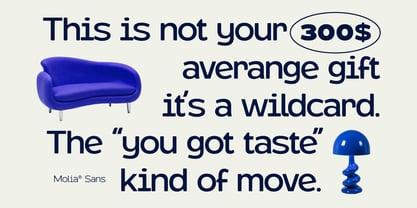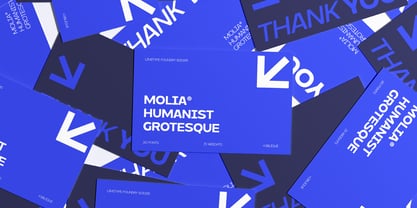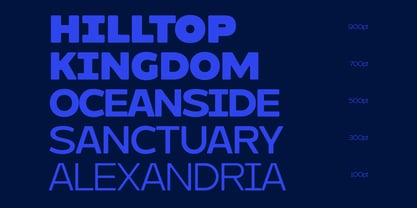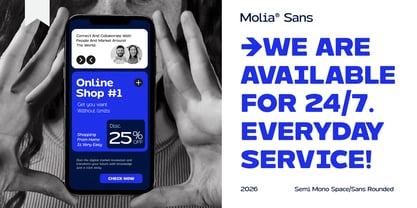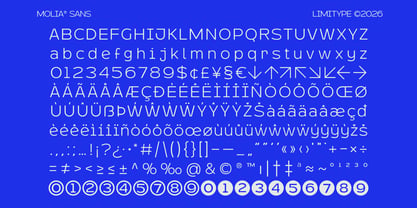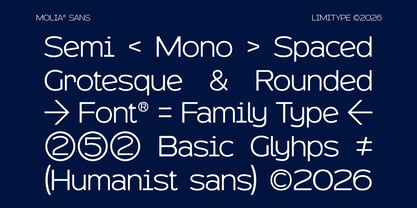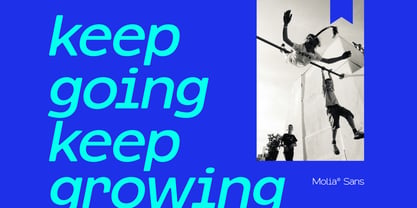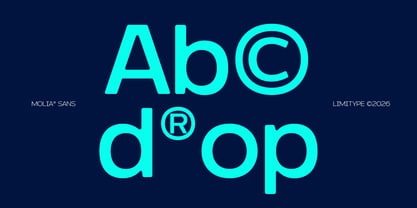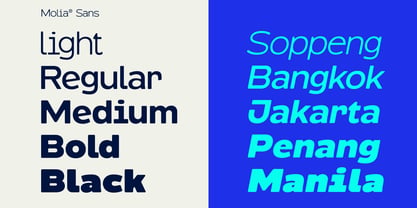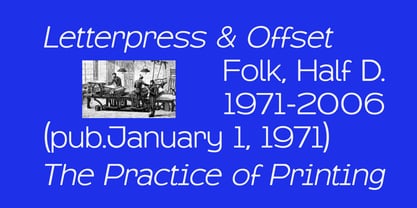
Molia Oblique
The Molia Oblique Font Family was designed by Muhammad Muammar, Furqan Sudirman and published by limitype. Molia Oblique contains 10 styles and family package options.
Molia is a modern sans serif typeface that blends the clarity of a monospaced structure with soft rounded grotesque forms, creating a balance between technical precision and friendly aesthetics. Its clean, geometric yet approachable shapes make it ideal for branding, digital interfaces, editorial layouts, posters, and logotype design. Designed as a versatile font family, Molia also includes an oblique version to add flexibility and dynamic expression to modern typography. Molia available with: Uppercase Lowercase Number Symbol Multilingual